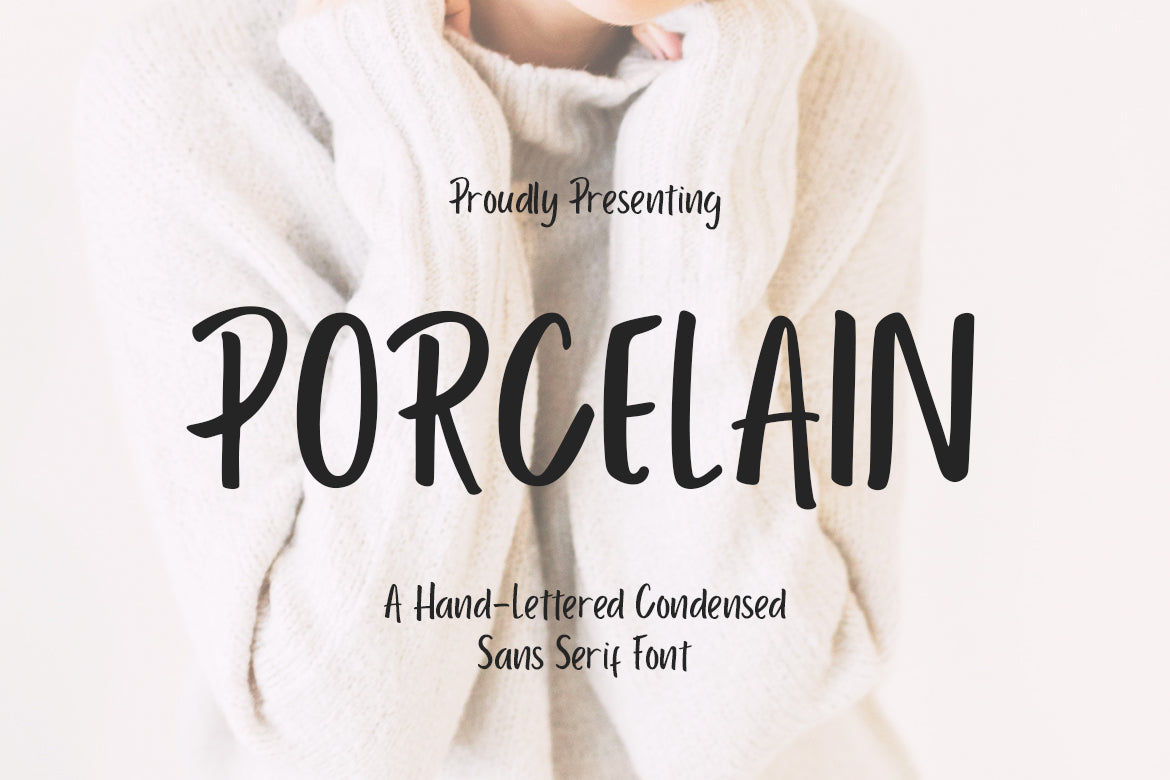
Porcelain - Free Condensed Sans Serif Font
We're glad to feature this beautiful Porcelain - Free Condensed Sans Serif Font. Crella has featured this amazing and beautiful free typeface. This is absolutely beautiful font so you can easily make world-class designs.